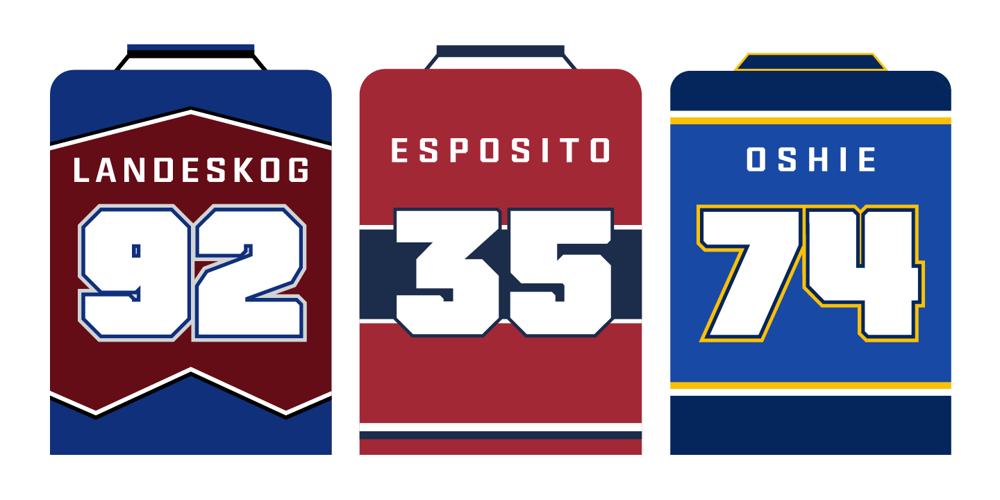
Atelier Font Family was designed by Michael Cina and published by Associated Typographics. Atelier contains 10 styles and family package options. Atelier started years ago as a sketch for a branding project. Like a lot of my fonts, I would pick it up and work on it for a bit and then have to concentrate on another project. I picked this one back up and came at it with a new perspective, which is always fun. As I was designing it, I was thinking about craft of woodtype and also 70’s Dutch design. The result is a dramatic typeface with personality that is also clean and fun to use. Atelier has a simple structure that gives the user the ability to style, as needed. That is always one of our challenges, to create a typeface with personality, but also to give it a solid foundation for the end-user. We added little notches to soften Atelier up a little and help with legibility. As the typeface gets larger, you are able to see these details. We also spent a lot of time making alternates, support for many languages and making sure the spacing and kerning was perfect. We hope you agree!